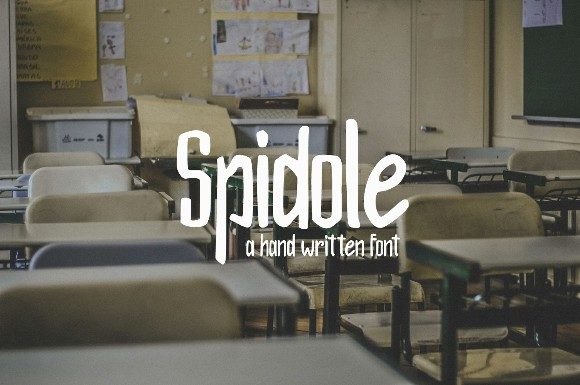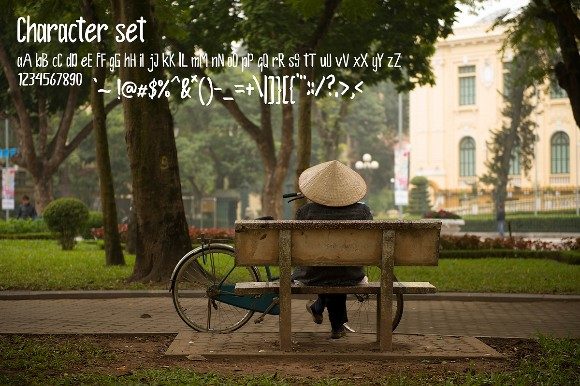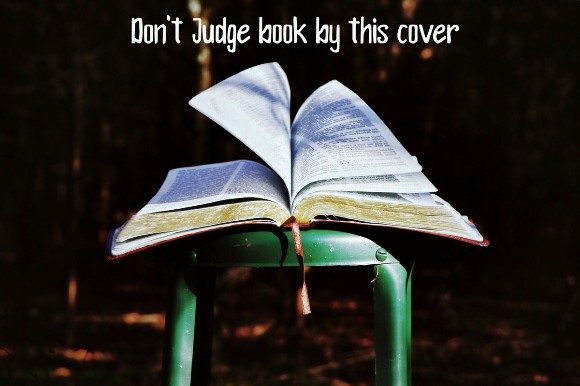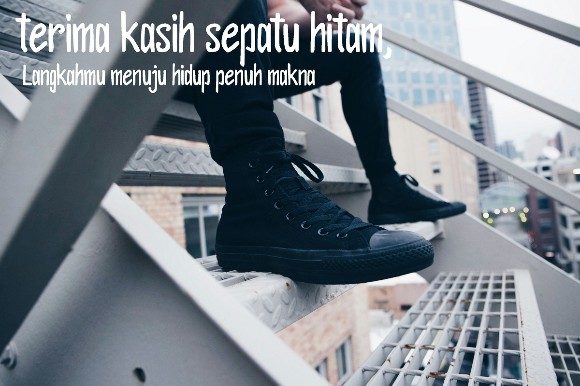
Spidole Font
About Spidole Font
The Spidole is a striking handwritten font. It has a good readability which makes it perfect for every design which needs to stand out.